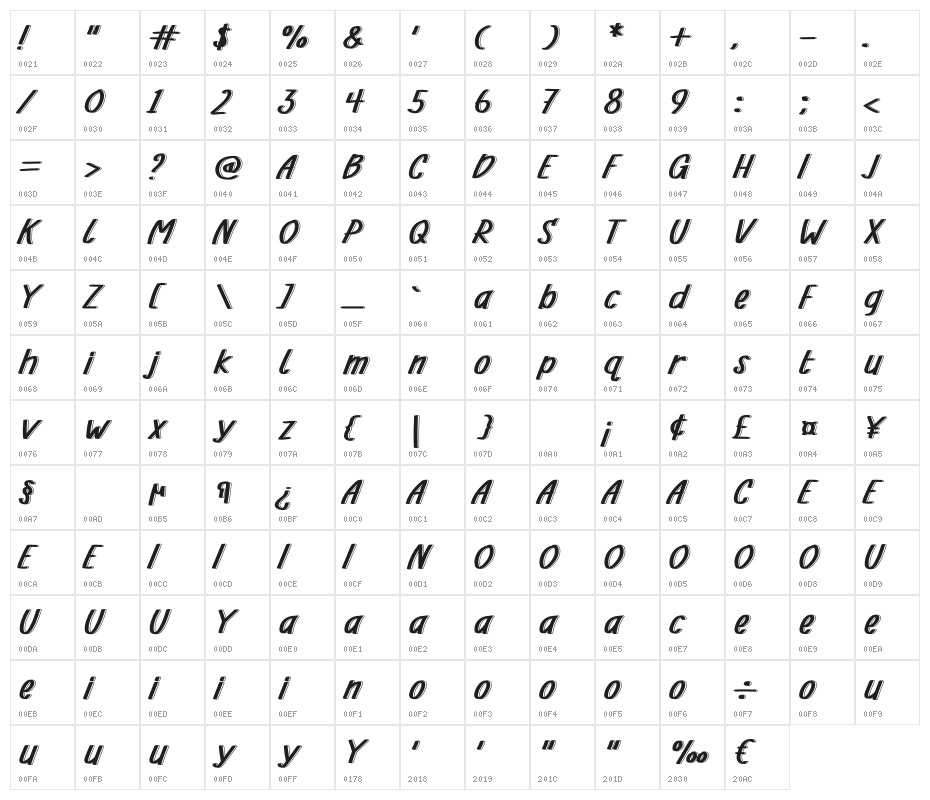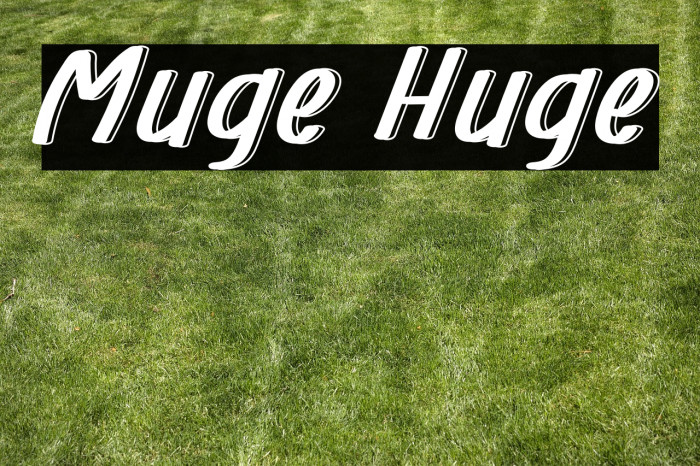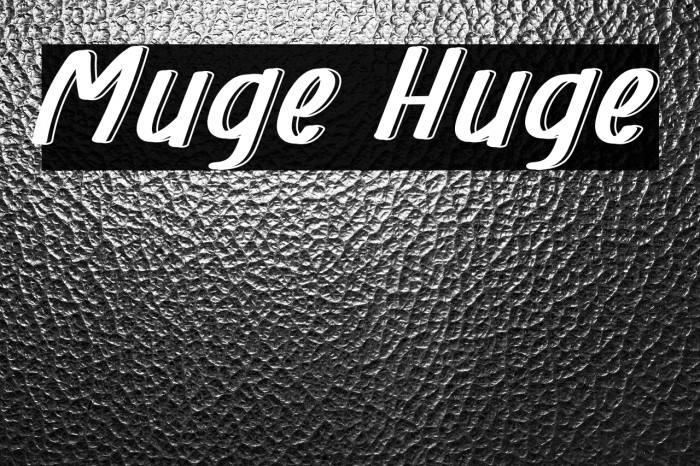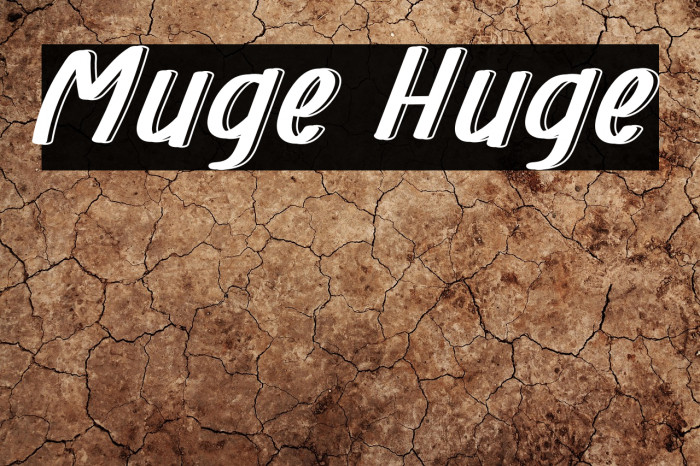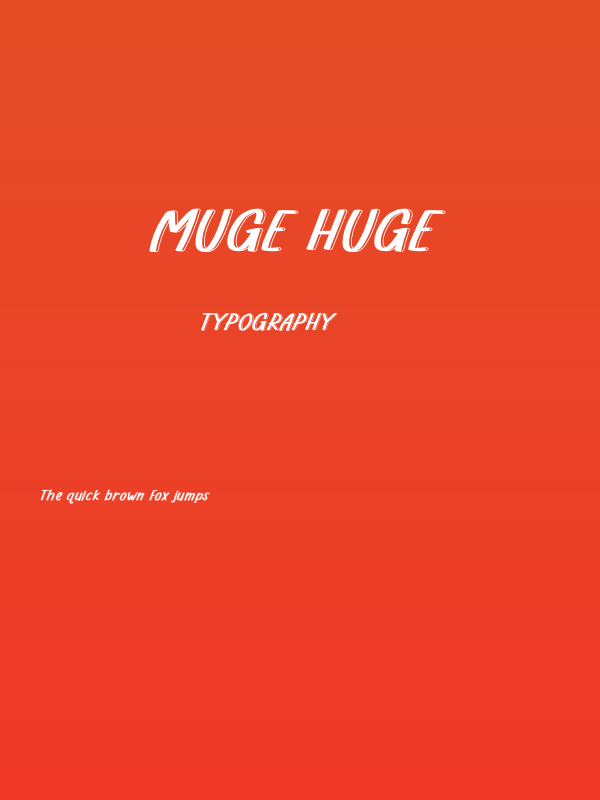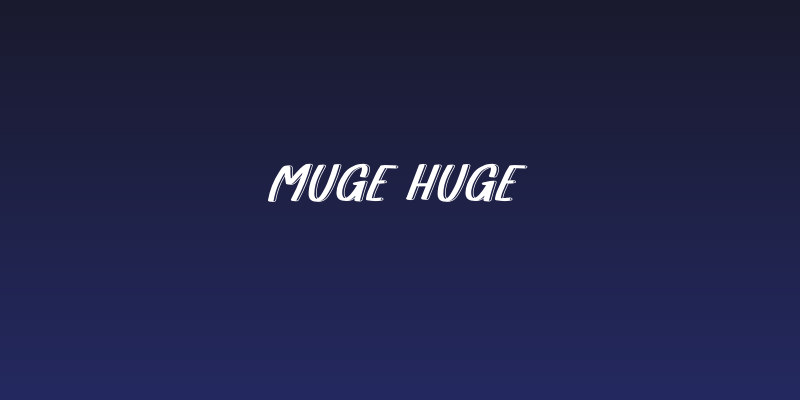
Muge Huge Font
Muge Huge Description
This font features a bold and dynamic script style with a playful and energetic feel. The letters are slightly slanted, giving a sense of motion and fluidity. Each character is crafted with a thick stroke, creating a strong visual impact. The font maintains a consistent weight throughout, with rounded edges and smooth curves that add to its approachable and friendly appearance. The spacing between characters is relatively tight, enhancing the cohesive look of the text. This font is well-suited for designs that require a lively and engaging touch, such as posters, branding, and headlines.
| Proposed Projects | Ideal for posters, branding, headlines, and any design needing a lively touch. |